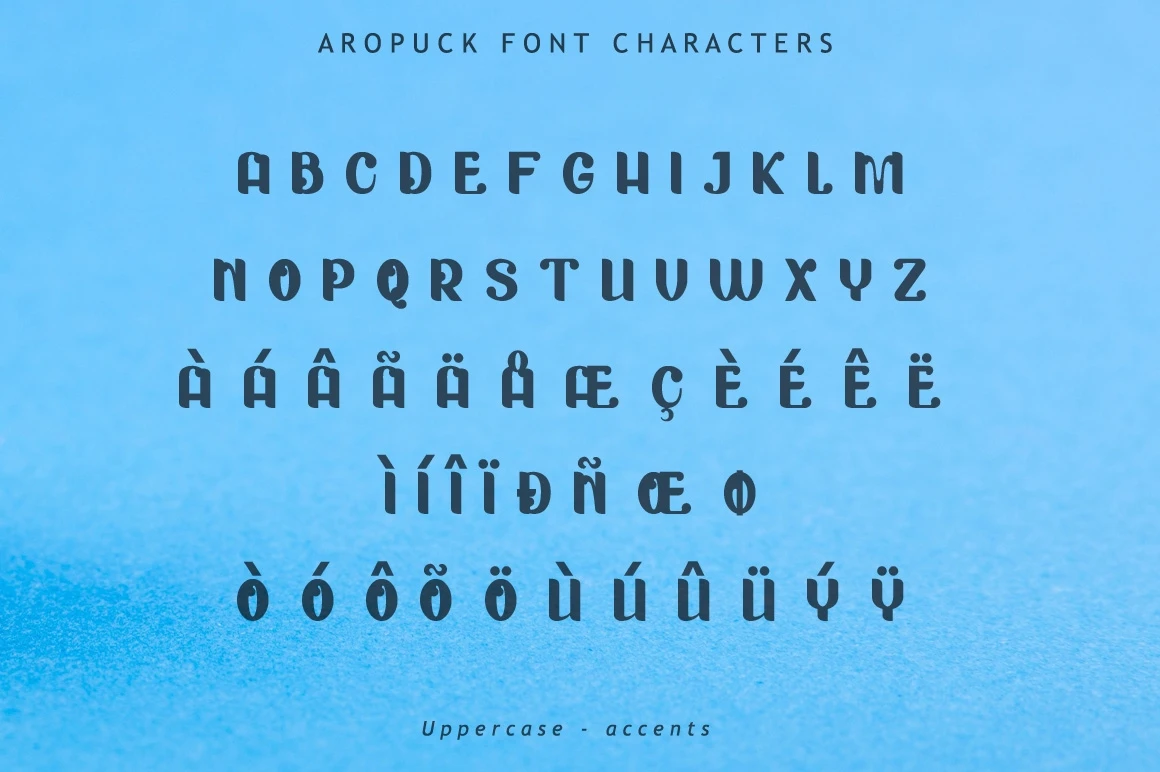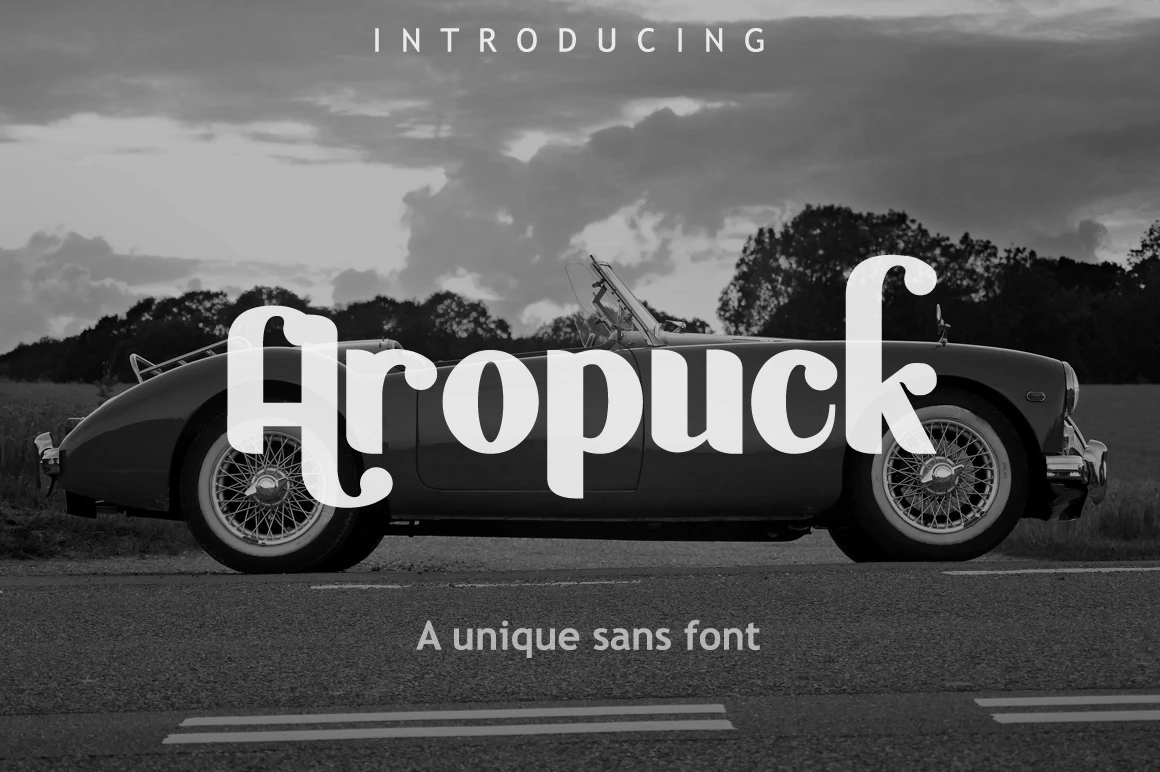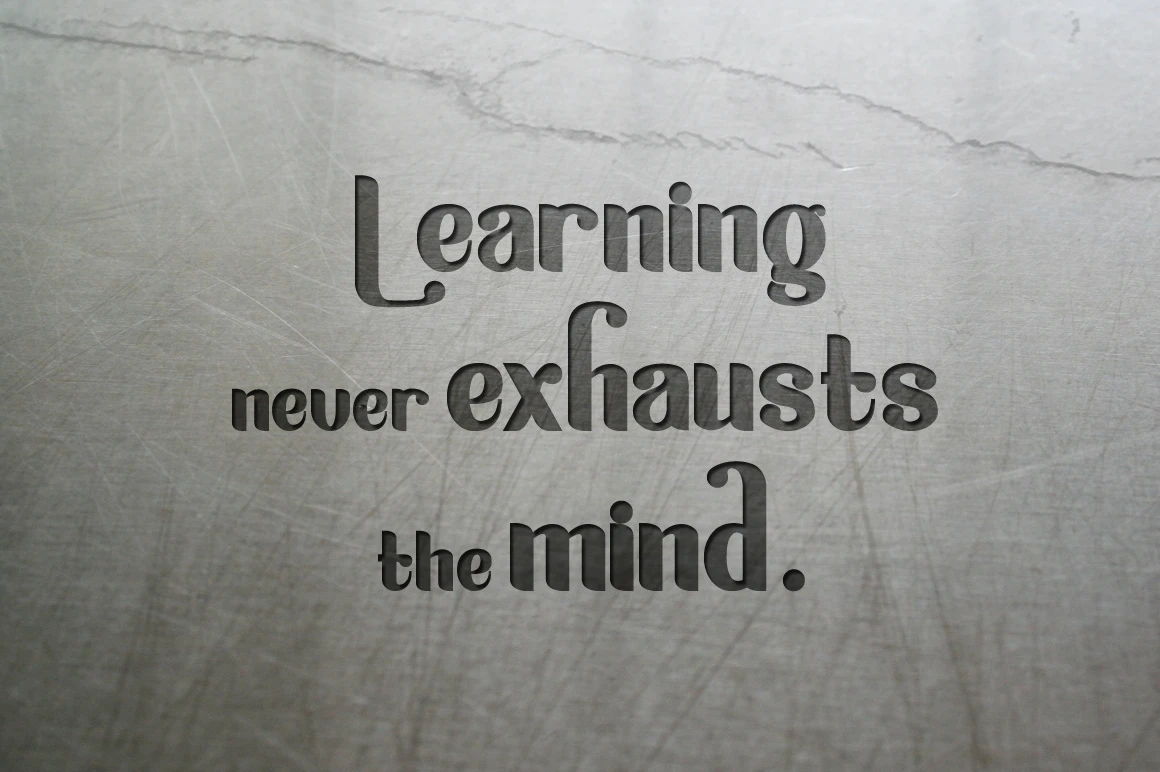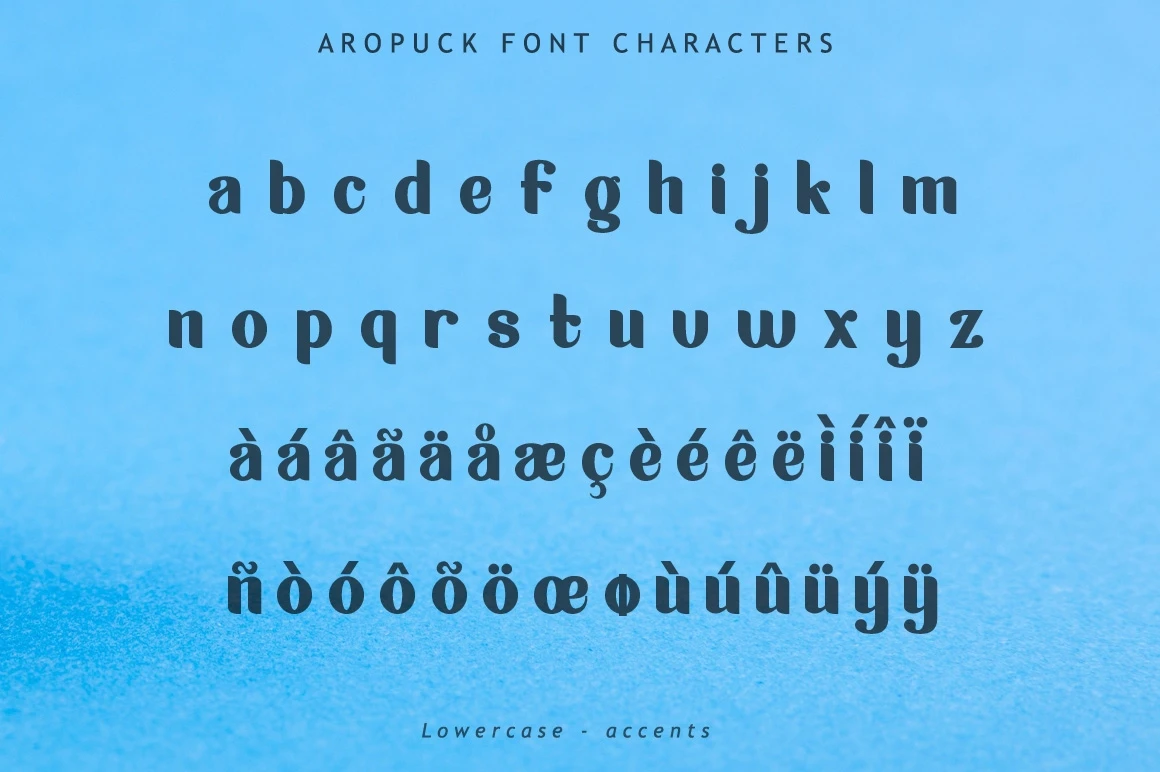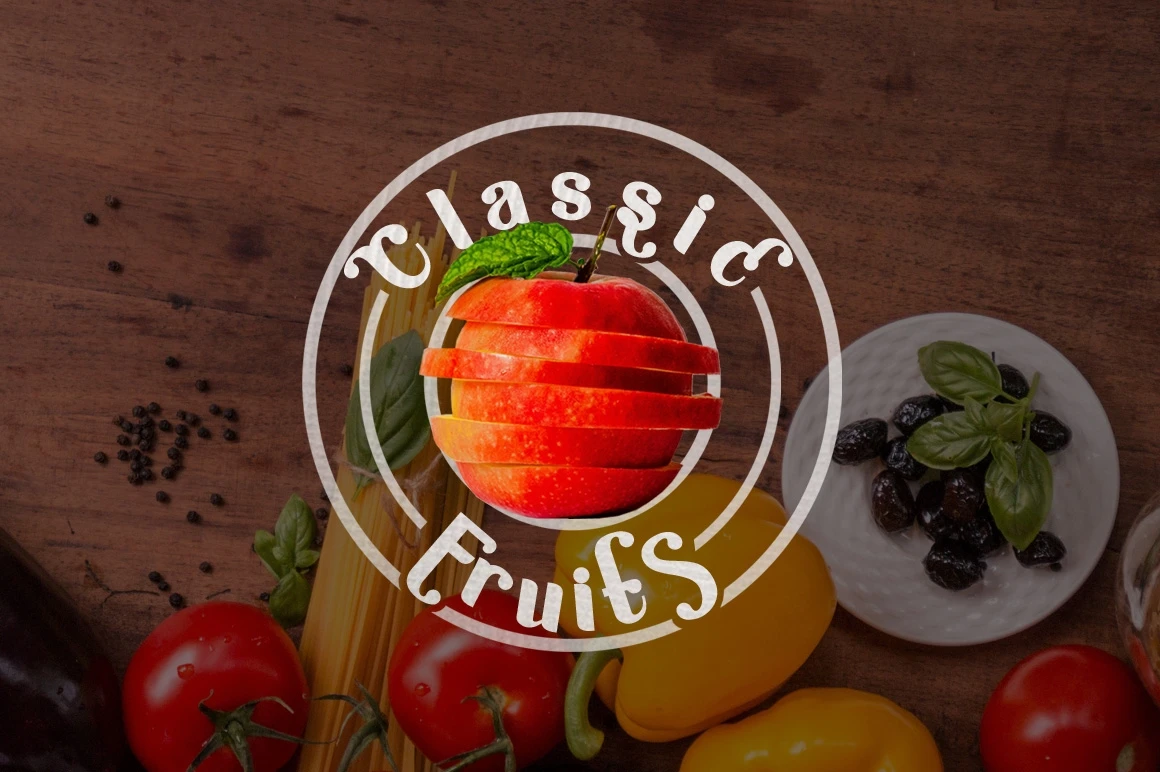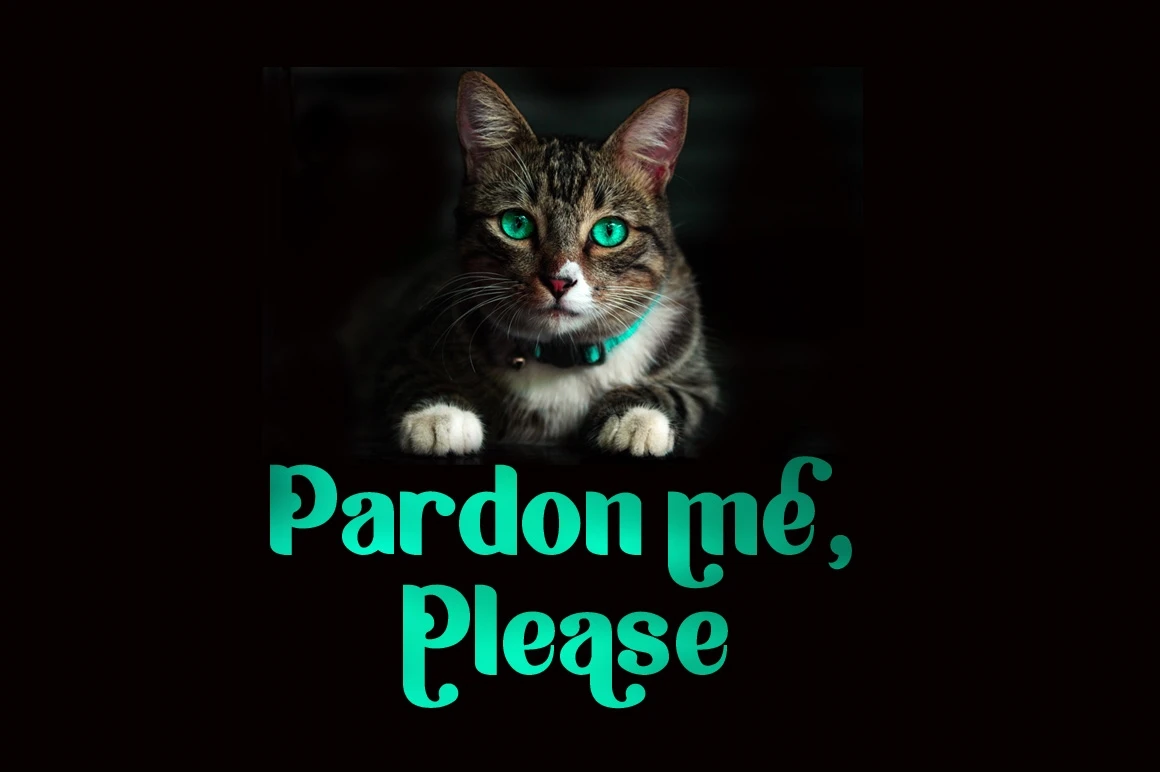
Aropuckis a unique sans font with artistic alternates character.
Aropuck is great for your formal or classic themed designs, logo, headline, letterheads, etc.
Features :
- Uppercase A-Z
- Lowercase a-z
- Numbers 0-9
- Accents
- Punctuation
- Uppercase alternates
- Lowercase alternates
- Multilingual support